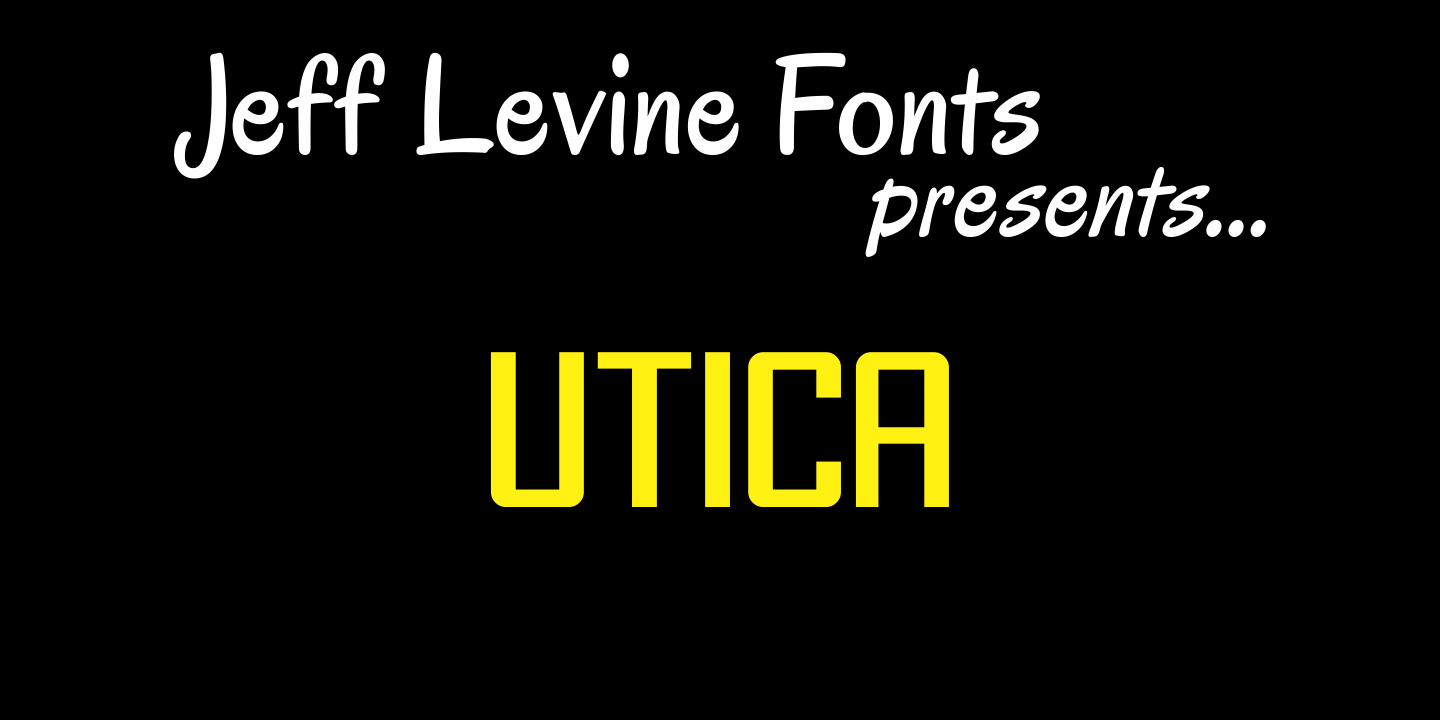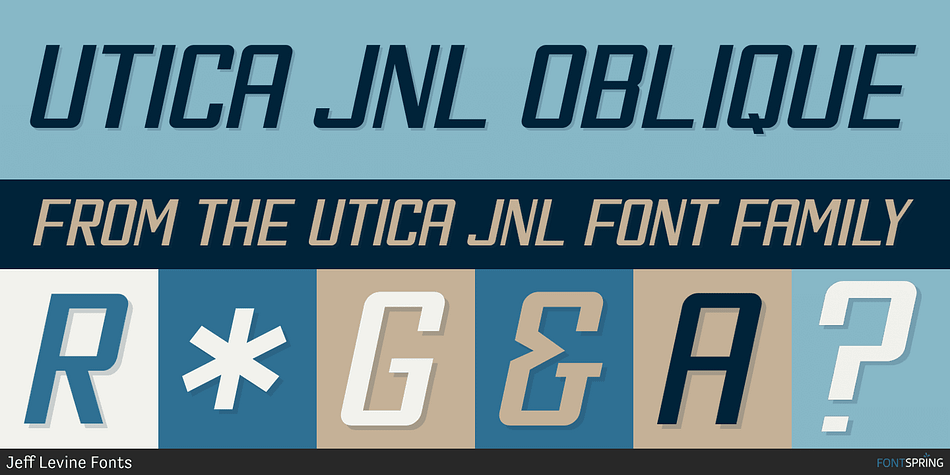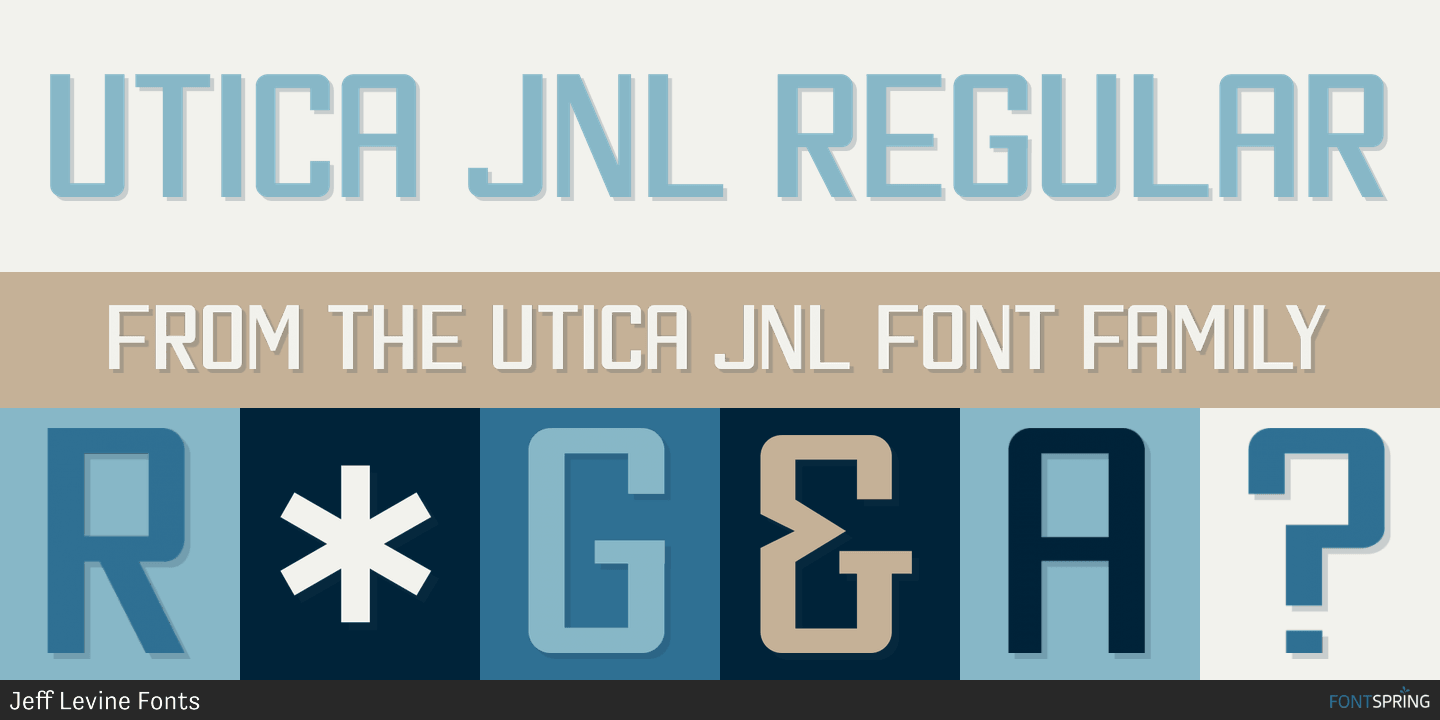
Utica JNL is a display font family. This typeface has two styles and was published by Jeff Levine Fonts.
Utica JNL takes the basic components of Boat Decals JNL and reworks the characters into a bold, block font with thick-and-thin line variations.